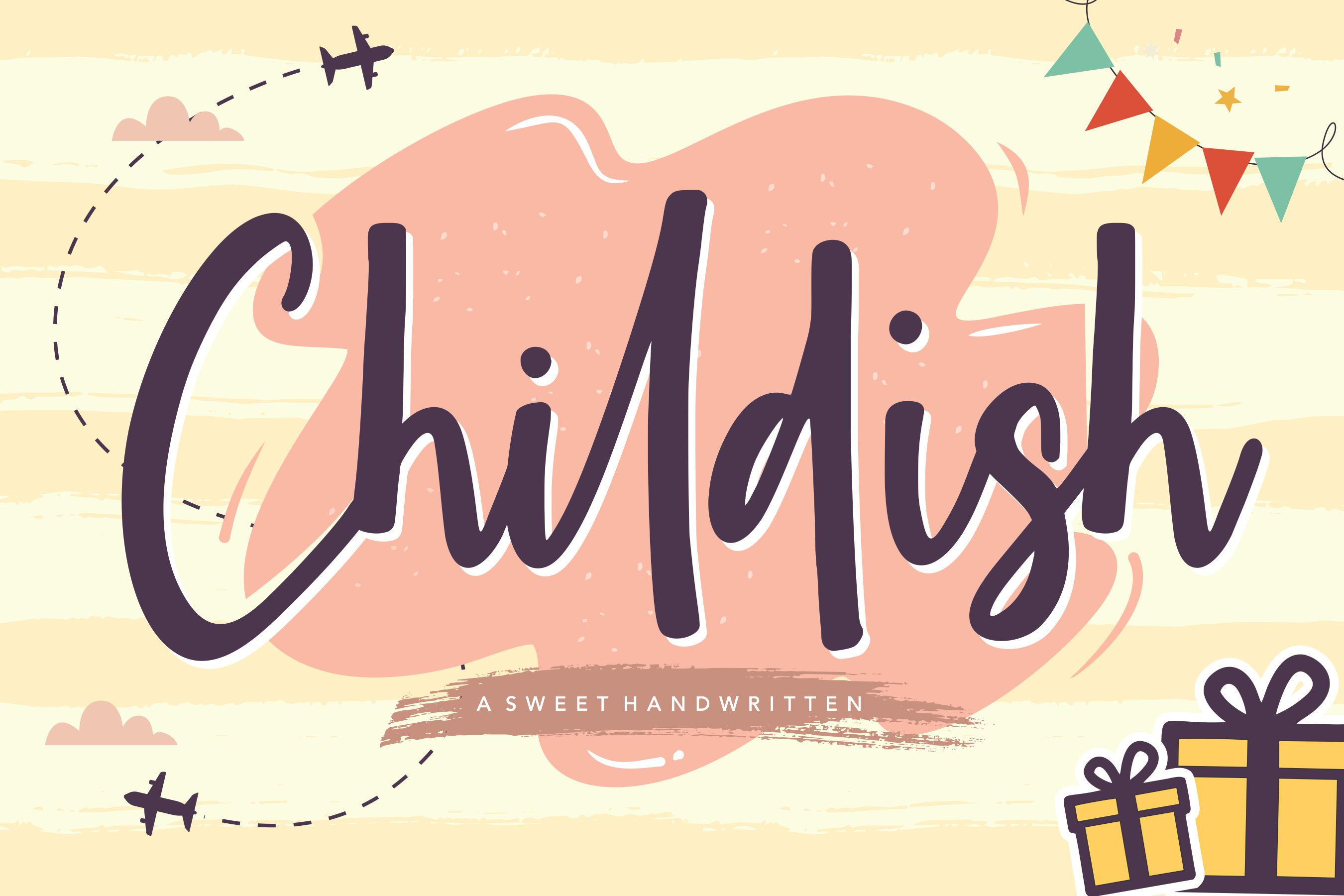
Childish - Sweet Handwritten Font
Proudly Present, Childish Font
Childish is a sweet handwritten font. As its name implies, this font embodies quirkiness, joy and authenticity, and it is the best choice for a kids or school project. This gorgeous font will turn any creative idea into a true standout!